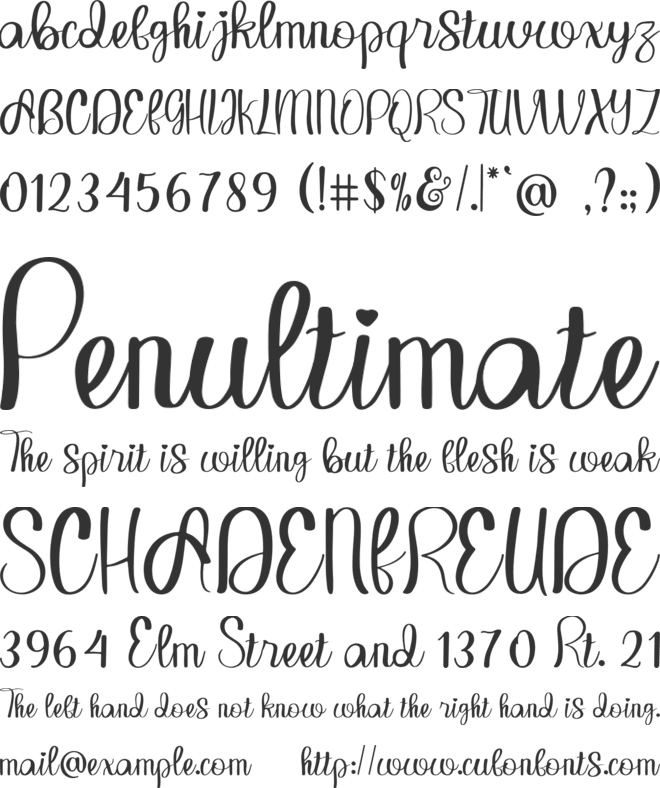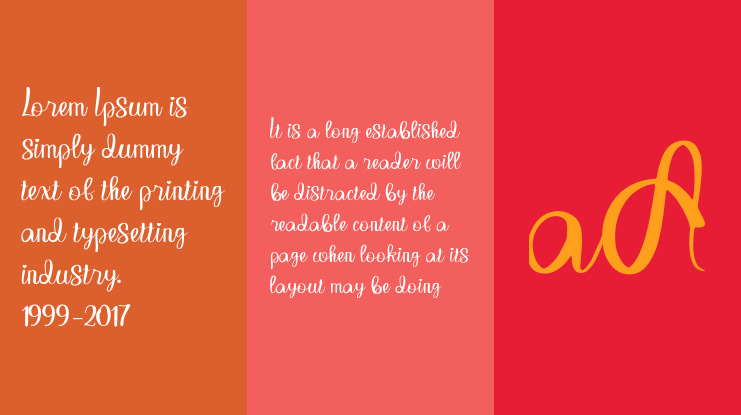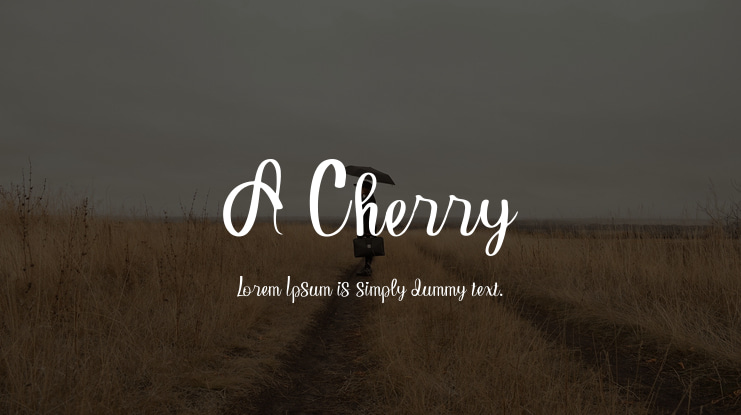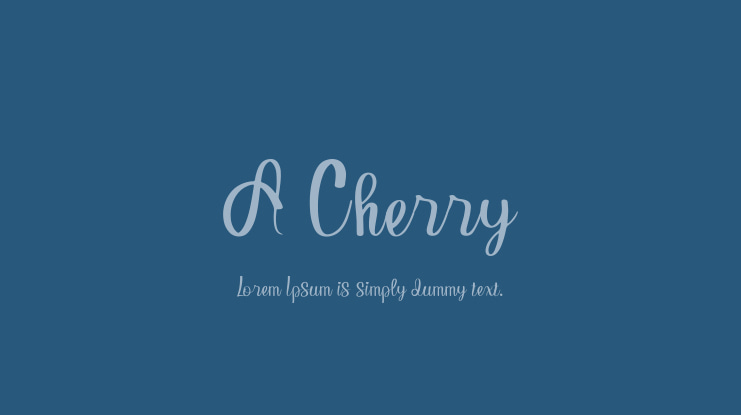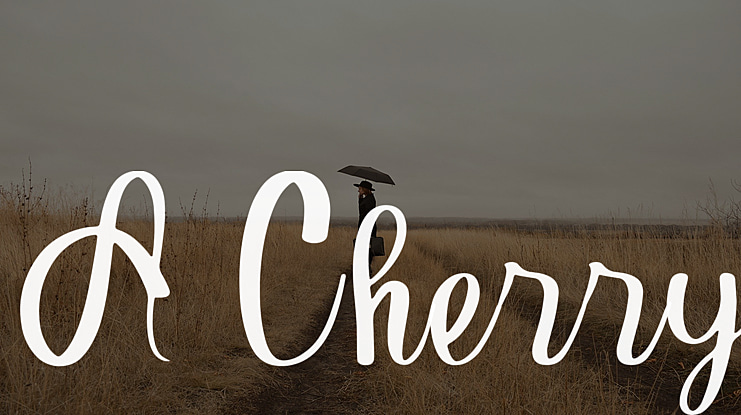
A Cherry Font
A Cherry is a graceful script font. Fall for its ravishing style and use it to create gorgeous wedding invitations, beautiful stationary art, eye-catching social media posts, and much more!